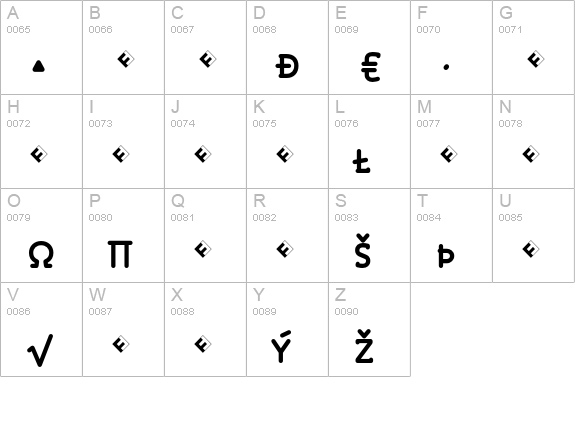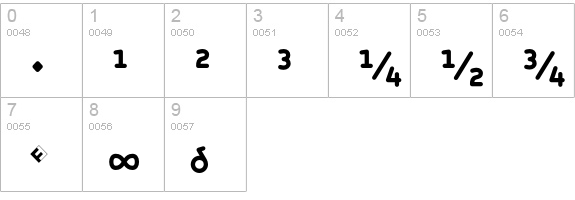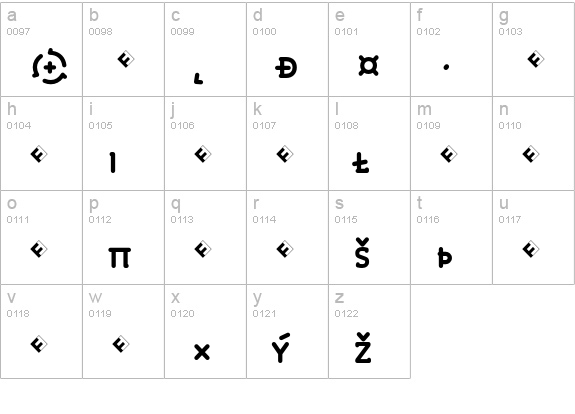
Roice-BoldSCExpert is a modern and stylish font that exudes sophistication and elegance. Its bold and expertly crafted design makes it perfect for adding a touch of flair to any project. The sharp, clean lines and refined curves of this font make it stand out from the crowd. What sets Roice-BoldSCExpert apart is its versatility - suitable for both professional and creative use. Whether you're designing a sleek corporate presentation or working on a trendy branding project, this font is sure to make a statement. Best of all, Roice-BoldSCExpert is available for free download at FontsMarket.com. So go ahead and elevate your designs with this exceptional font today!